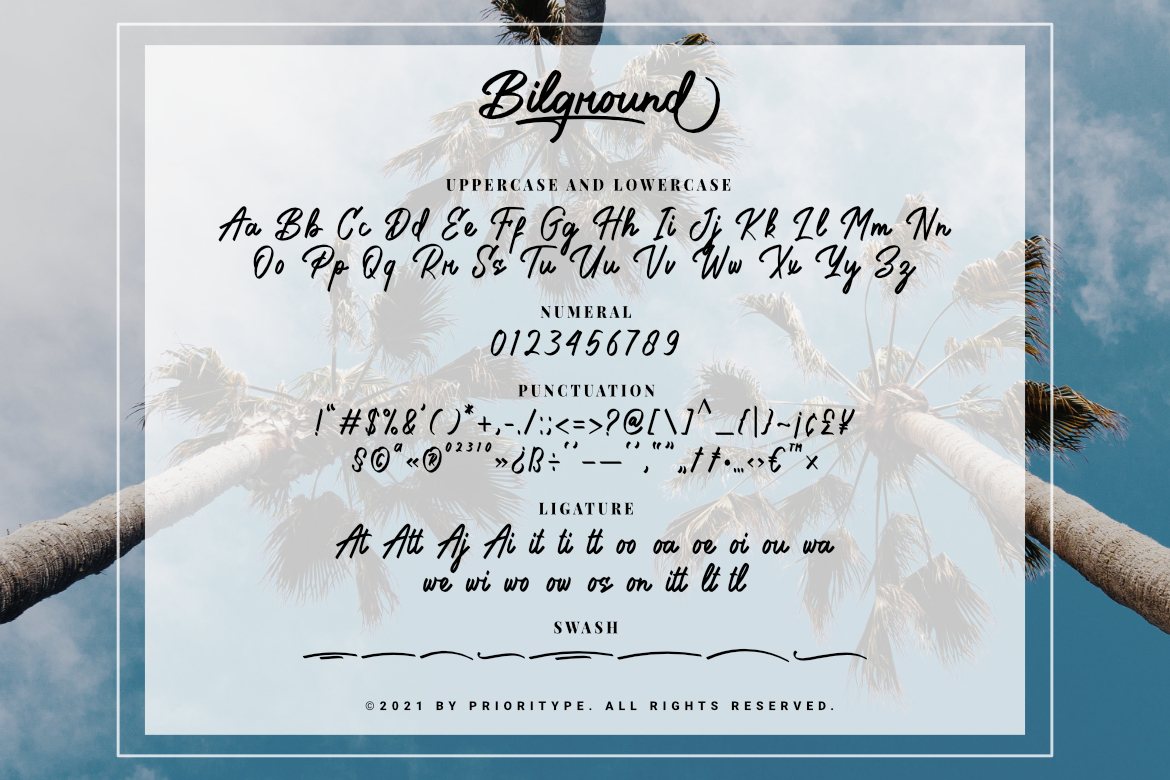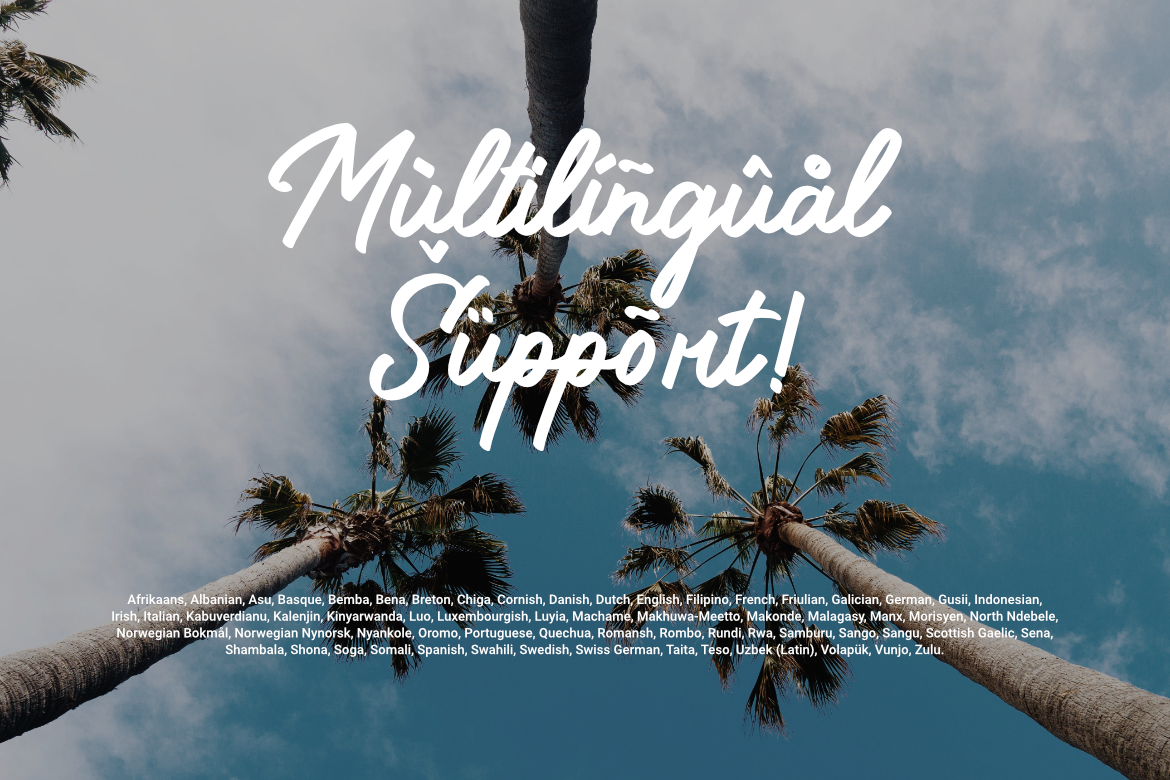
Bilground – Handwritten Fonts
Beautiful handwritten fonts with strong characters are now here to accompany your design projects. You can apply it to wedding designs, logos, quotes, social media posts, video content display etc.
Features: Uppercase, Lowercase, Numeral, Punctuation, Multilingual, Opentype Features & PUA Encoded.
Multilingual contained: Afrikaans, Albanian, Asu, Basque, Bemba, Bena, Breton, Chiga, Cornish, Danish, Dutch, English, Filipino, French, Friulian, Galician, German, Gusii, Indonesian, Irish, Italian, Kabuverdianu, Kalenjin, Kinyarwanda, Luo, Luxembourgish, Luyia, Machame, Makhuwa-Meetto, Makonde, Malagasy, Manx, Morisyen, North Ndebele, Norwegian Bokmål, Norwegian Nynorsk, Nyankole, Oromo, Portuguese, Quechua, Romansh, Rombo, Rundi, Rwa, Samburu, Sango, Sangu, Scottish Gaelic, Sena, Shambala, Shona, Soga, Somali, Spanish, Swahili, Swedish, Swiss German, Taita, Teso, Uzbek (Latin), Volapük, Vunjo, Zulu.